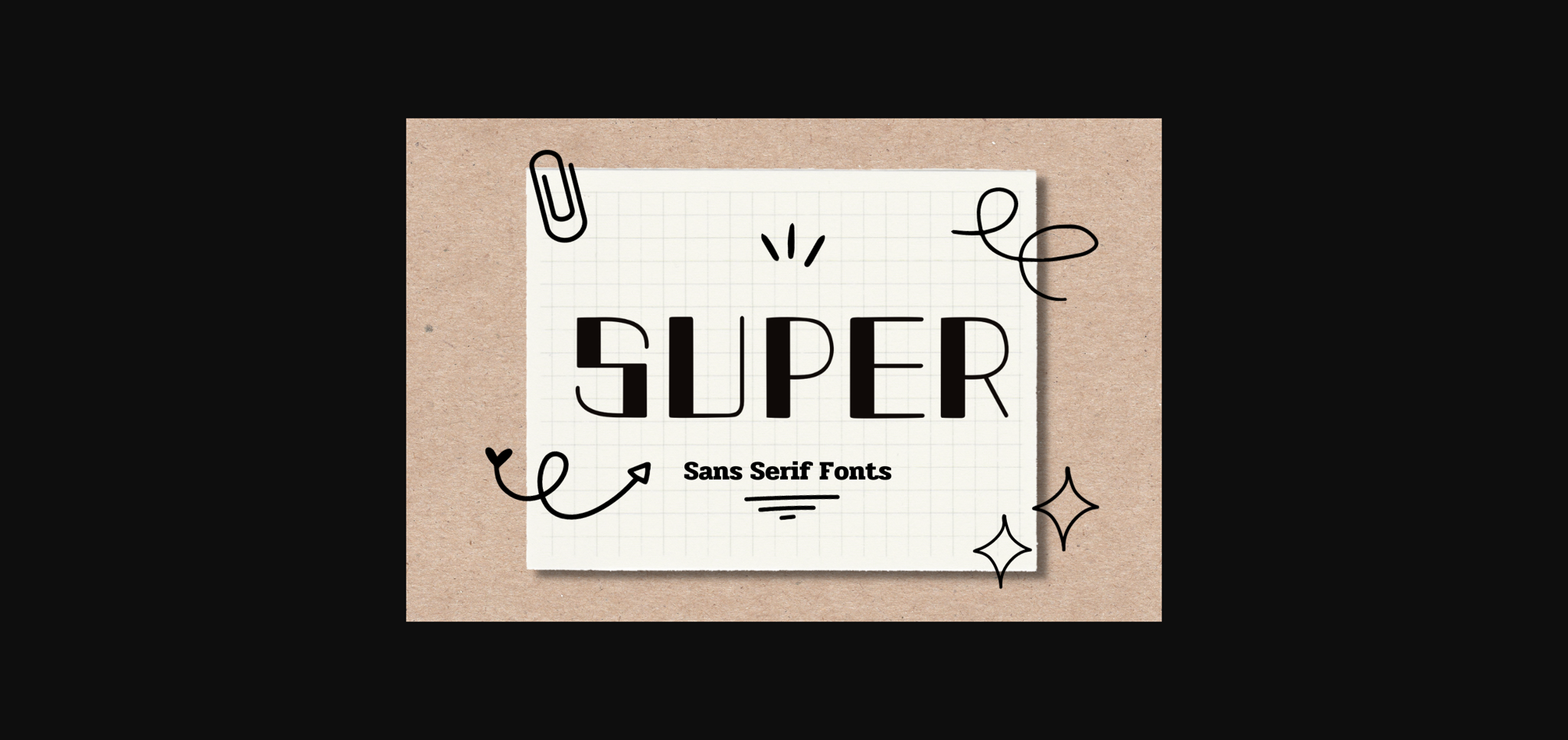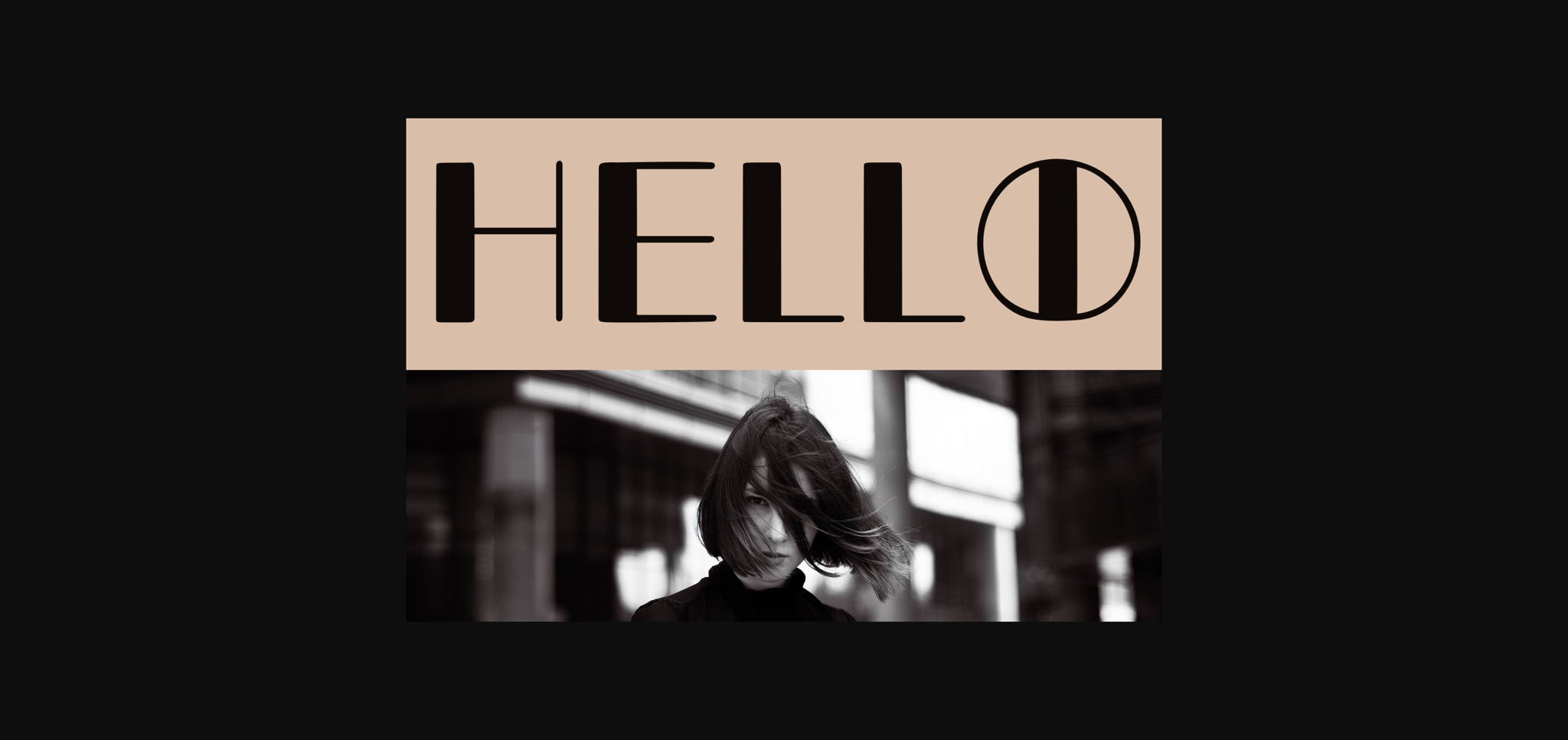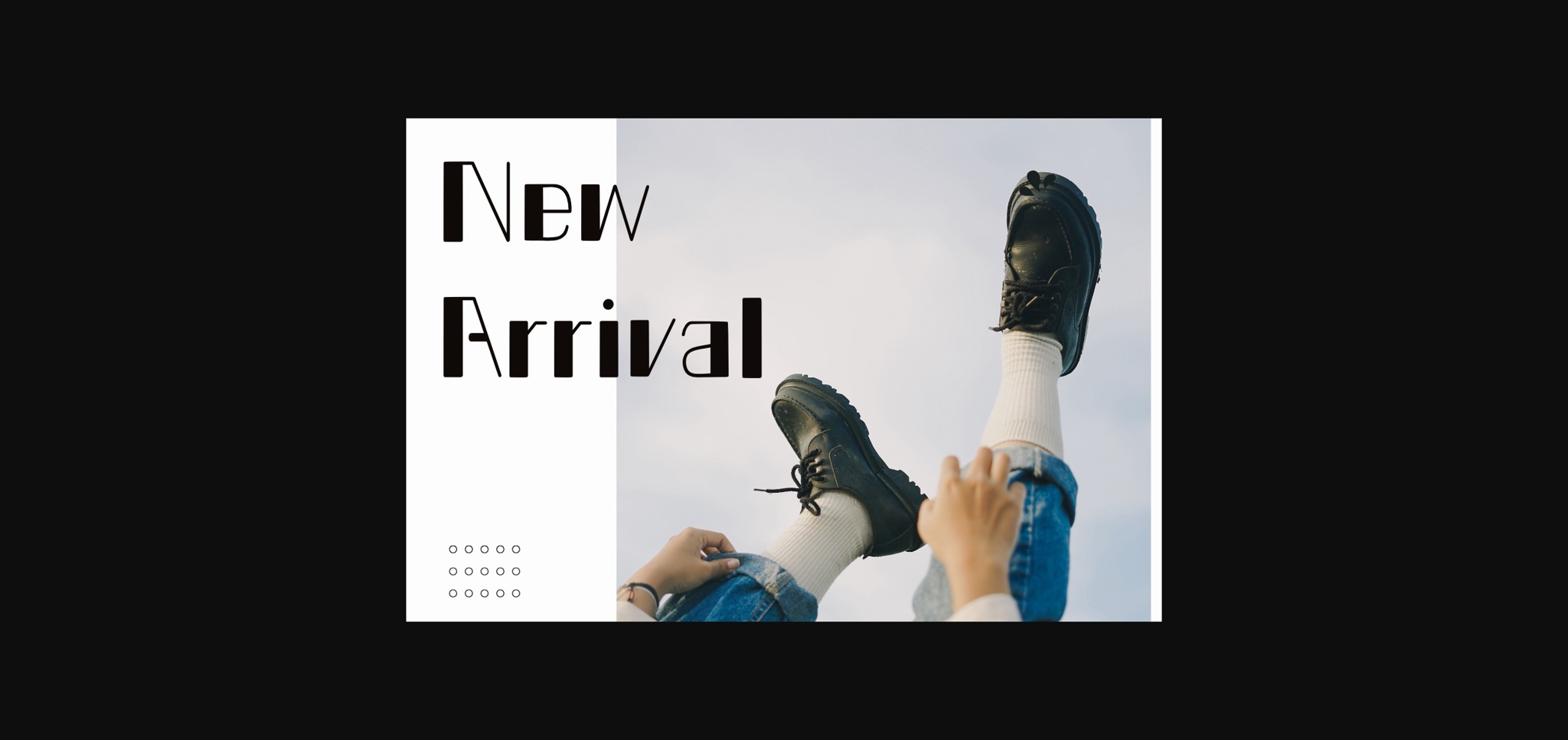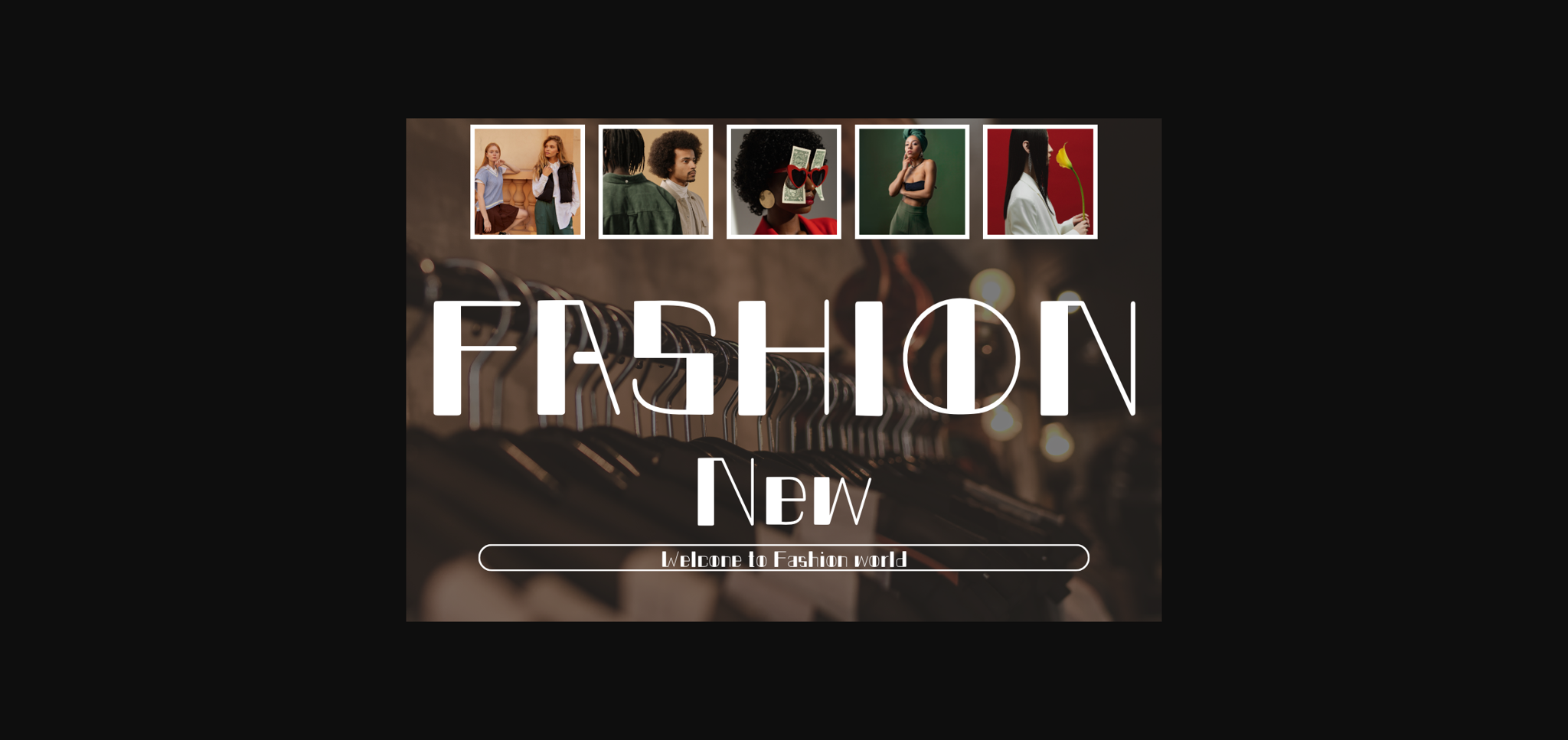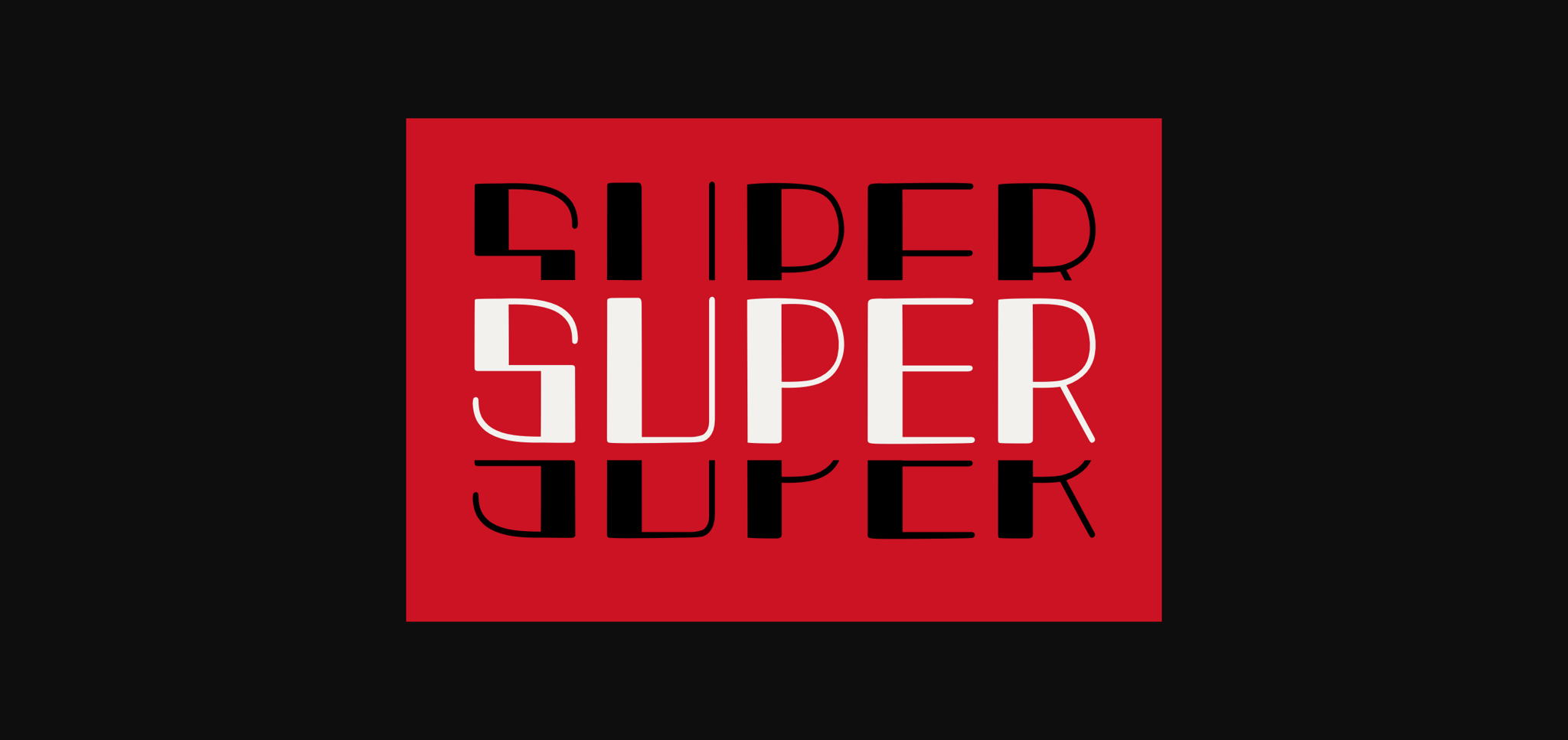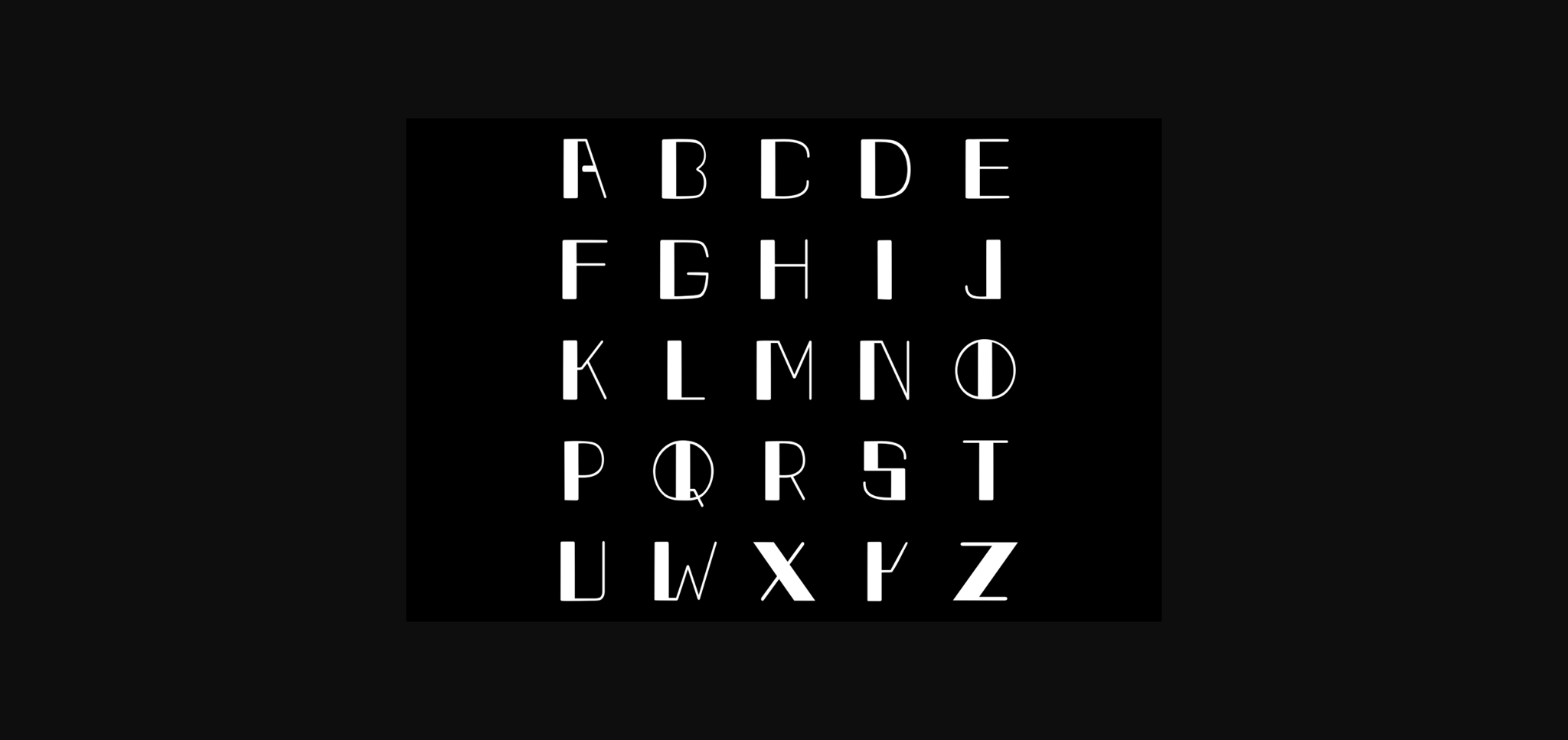
About Super Font
Elevate your design game with “Super,” a captivating Sans serif font that exudes strength and confidence. With its commanding presence and bold aesthetics, “Super” is the perfect choice for making a statement and leaving a lasting impression. Whether you’re crafting attention-grabbing headlines, creating stunning posters, or designing impactful branding materials, this font will effortlessly draw the eyes of your audience.